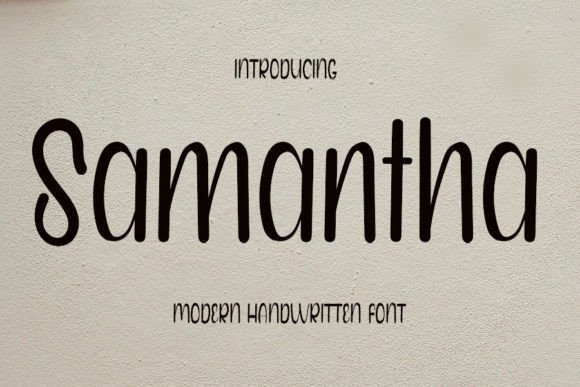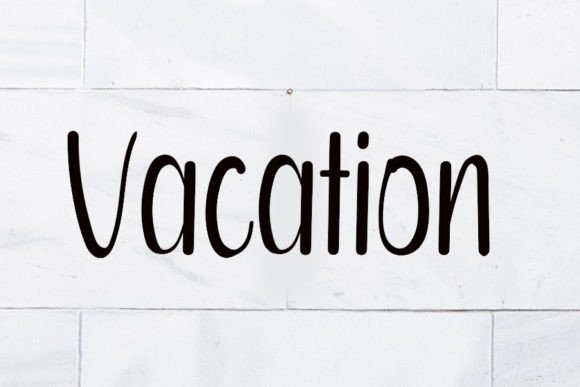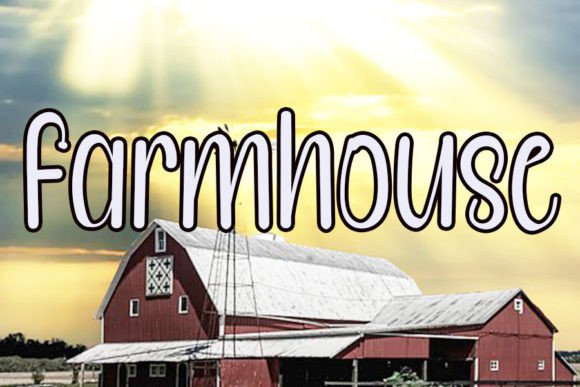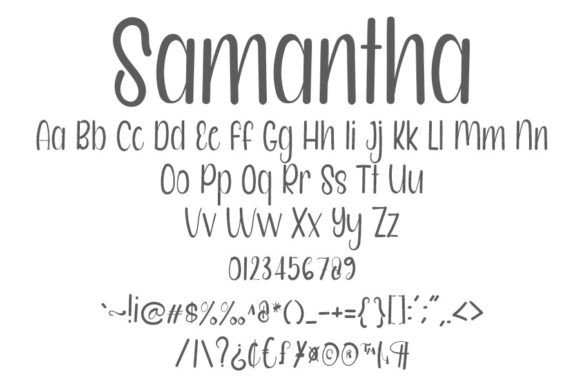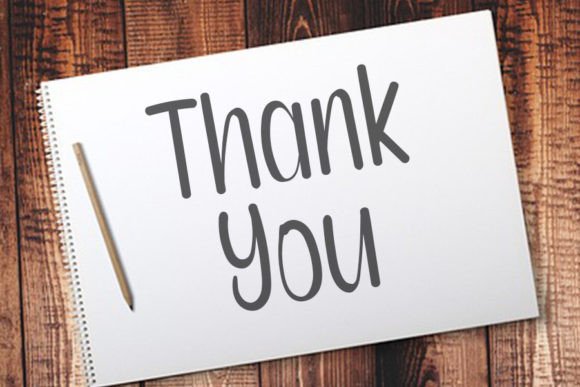
Samantha Font
The Samantha Font Download is a cool handwritten script that blends a modern vibe with the elegance of classic calligraphy. With balanced strokes that are not too thin and not too thick, Samantha delivers clarity, charm, and sophistication in equal measure. Whether used for invitations, logos, posters, or digital projects, this typeface adds timeless beauty to every design.
A Modern Handwritten Script with Classic Inspiration
Samantha combines clean handwritten artistry with contemporary appeal. Unlike generic fonts, this Samantha script font feels stylish and versatile, making it suitable for a wide range of creative projects. As a result, it adds a professional yet approachable tone to your designs.
Event stationery looks more memorable when paired with handwritten fonts. The Samantha Font is ideal for wedding invitations, greeting cards, thank you notes, and special announcements. Moreover, its smooth handwritten rhythm ensures every detail feels romantic and elegant.
Branding and Logo Design with Samantha Font
Typography is a key part of branding, and the Samantha handwritten font is excellent for boutique logos, packaging, and promotional designs. In addition, its balance of modern style and classic influence helps brands communicate creativity and professionalism.
Posters, Titles, and Editorial Displays
The Samantha Font Download is also perfect for posters, magazine titles, and book covers. Therefore, it adapts effortlessly to large-scale projects, ensuring clarity and impact while preserving its handwritten charm.
In the digital world, fonts must be both attractive and readable. The Samantha typeface integrates seamlessly into Instagram posts, YouTube thumbnails, Pinterest graphics, and blogs. Its cool handwritten form makes content feel engaging and stylish.
Why Designers Choose Samantha Typeface
Designers love fonts that provide both flexibility and beauty. Many handwritten fonts sacrifice legibility for decoration, but the Samantha handwritten script maintains clarity while keeping its expressive personality. This makes it a reliable option for both personal and professional use.
Add Cool Elegance to Your Projects Today